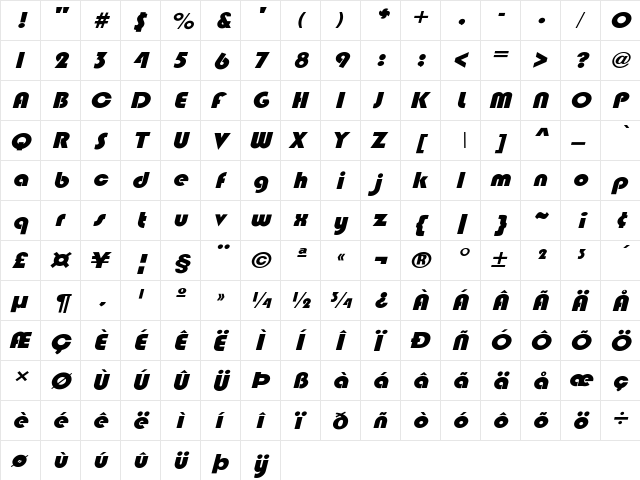
BlippoExtObl-Heavy Regular Font Preview
BlippoExtObl-Heavy Regular
Design Context for BlippoExtObl-Heavy Typeface
BlippoExtObl-Heavy takes a measured approach to typography — its balanced proportions and neutral character make it a reliable workhorse for both digital and print work.